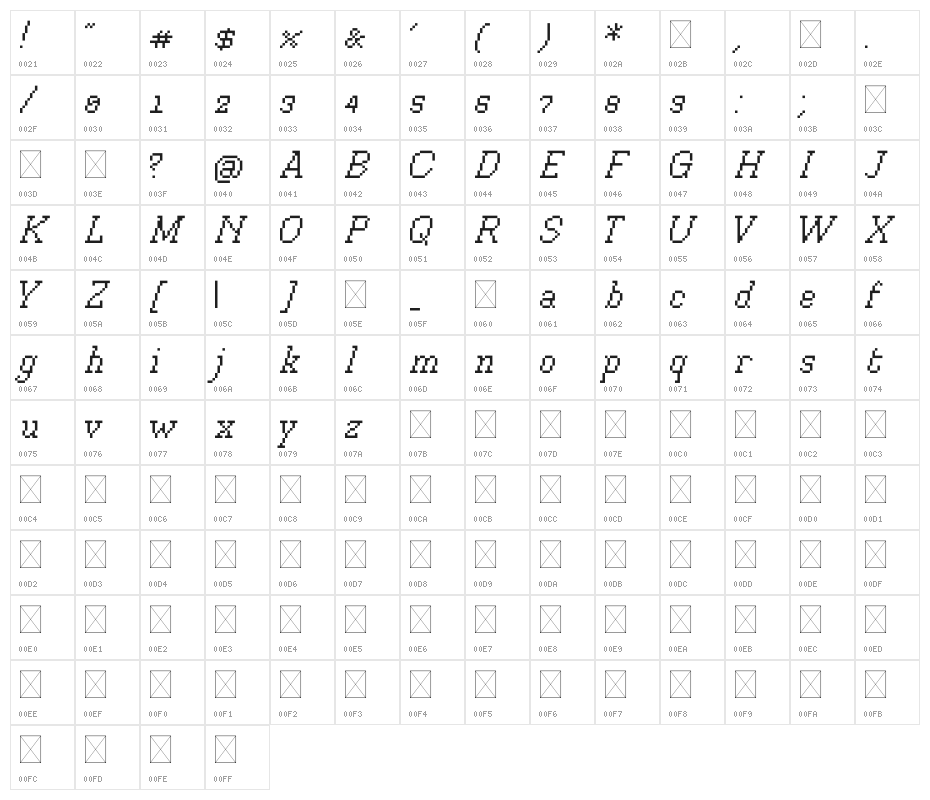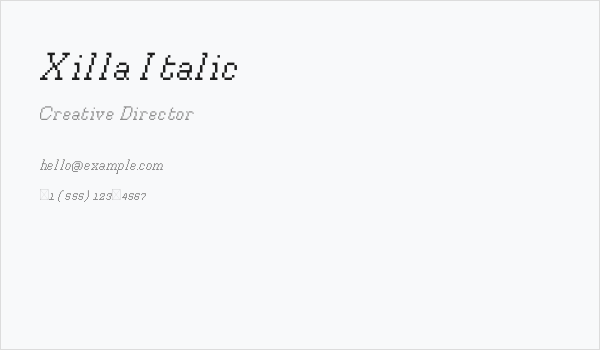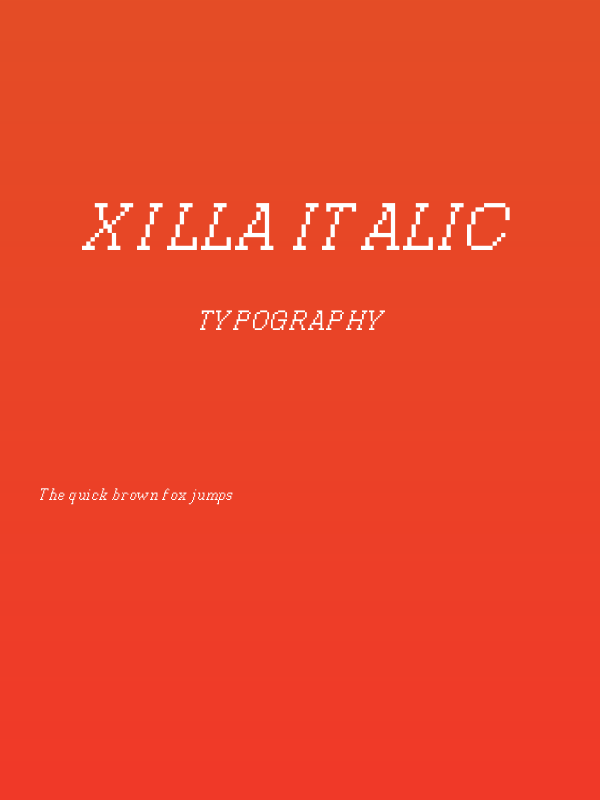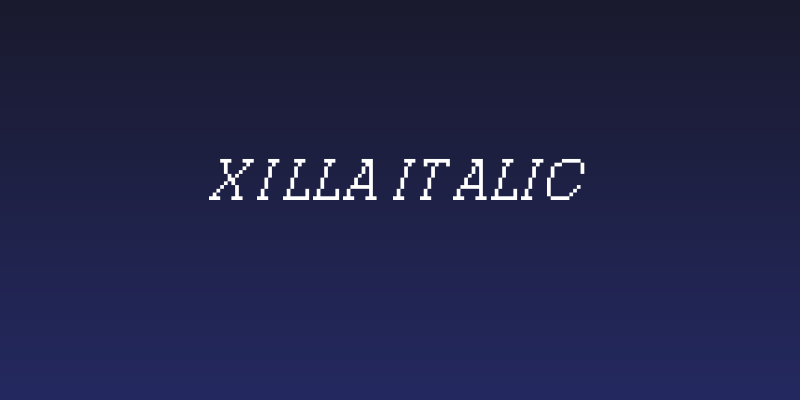
Xilla Italic Font
Xilla Italic Description
This font features a pixelated, italic style that evokes a retro, digital aesthetic. The characters are composed of small square blocks, giving it a distinct, grid-like appearance. The uppercase and lowercase letters maintain a consistent slant, enhancing the italic effect. The numerals and special characters follow the same pixelated pattern, ensuring uniformity across all glyphs. This font is reminiscent of early computer graphics and video game text, making it ideal for projects that aim to capture a nostalgic or tech-inspired look.
Overall StyleRetro, Digital
Use CaseLogos, Headlines, Digital Art
Proposed ProjectsIdeal for retro-themed designs, video game graphics, digital art projects, and tech-inspired branding.